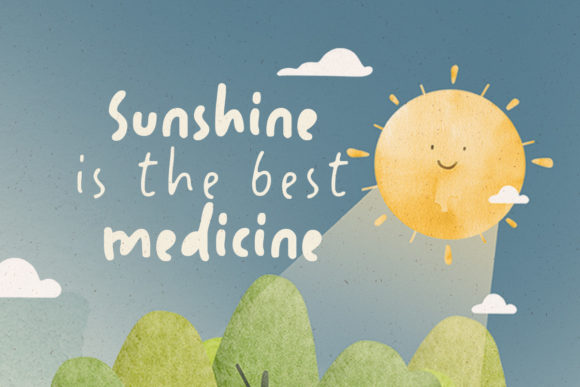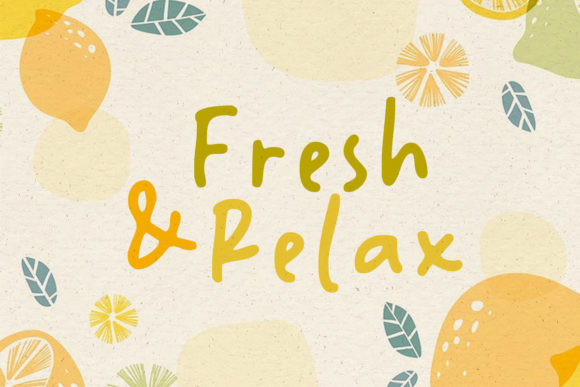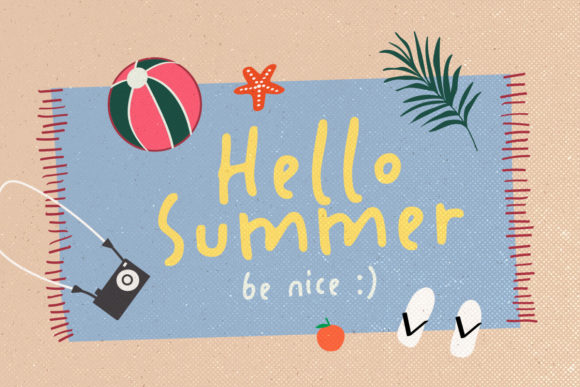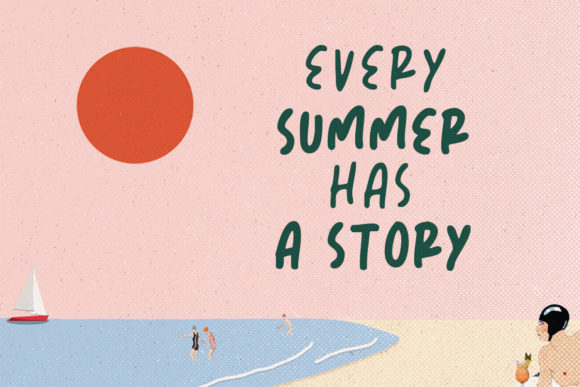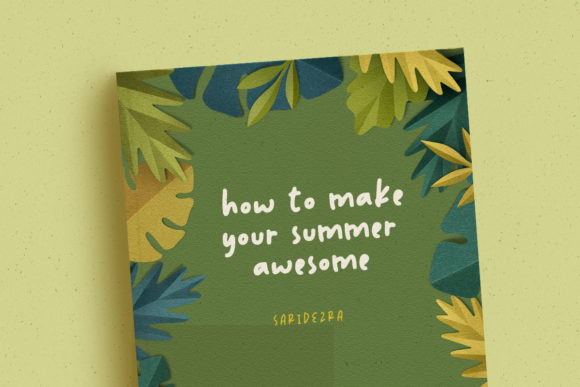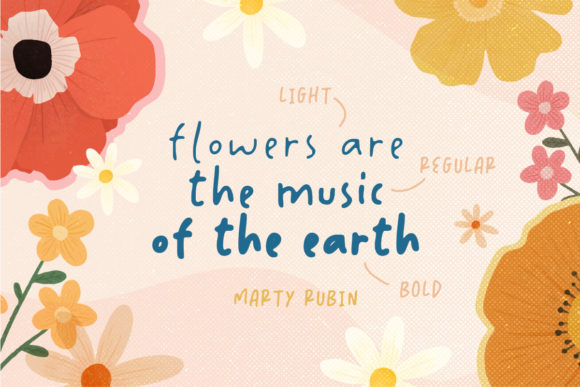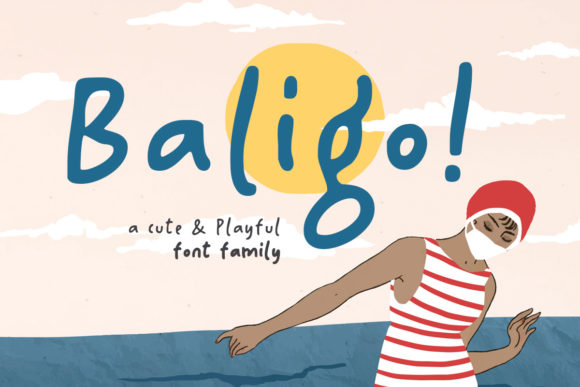
Introducing Baligo Font: The Cute and Playful Display Font to Brighten Up Your Designs
Are you tired of using the same old fonts in your designs? Do you want to add a touch of sweetness and playfulness to your projects? Look no further than Baligo Font! This adorable display font is perfect for designers and crafters who want to add a dash of fun and personality to their work.
What is Baligo Font?
Baligo Font is a modern display font that is designed to bring a smile to your face. Its sweet and lively style makes it a wonderful choice for a variety of design projects, from branding and advertising to packaging and social media graphics. With its unique and playful character, Baligo Font is sure to grab attention and leave a lasting impression.
Key Features of Baligo Font
- Cute and Playful Design: Baligo Font features a unique and adorable design that is sure to delight. Its playful style makes it perfect for designs that require a touch of whimsy and fun.
- Display Font: Baligo Font is a display font, which means it’s designed to be used at larger sizes, making it perfect for headlines, titles, and other attention-grabbing elements.
- Easy to Read: Despite its playful design, Baligo Font is easy to read, even at smaller sizes. This makes it a versatile font that can be used for a variety of design projects.
- Multilingual Support: Baligo Font supports multiple languages, making it a great choice for designers who work with international clients or create multilingual content.
Uses for Baligo Font
Baligo Font is a versatile font that can be used for a wide range of design projects, including:
- Branding and Advertising: Use Baligo Font to create eye-catching logos, ads, and marketing materials that will grab attention and leave a lasting impression.
- Packaging Design: Add a touch of sweetness and playfulness to your product packaging with Baligo Font.
- Social Media Graphics: Use Baligo Font to create engaging social media graphics, such as Facebook posts, Instagram stories, and Twitter headers.
- Party and Event Decor: Baligo Font is perfect for creating fun and playful party decorations, such as invitations, banners, and garlands.
Tips for Using Baligo Font
Here are a few tips for getting the most out of Baligo Font:
- Use it as a Headline Font: Baligo Font is designed to grab attention, so use it as a headline font to draw attention to your most important message.
- Pair it with a Simple Font: Balance out the playfulness of Baligo Font by pairing it with a simple font, such as a sans-serif font.
- Experiment with Colors: Baligo Font looks great in a variety of colors, so don’t be afraid to experiment and find the perfect color scheme for your design.
Baligo Font is a cute and playful display font that is sure to brighten up your designs. With its unique and adorable design, easy readability, and multilingual support, Baligo Font is a versatile font that can be used for a wide range of design projects. Whether you’re a designer, crafter, or DIY enthusiast, Baligo Font is a great choice for adding a touch of sweetness and playfulness to your work.